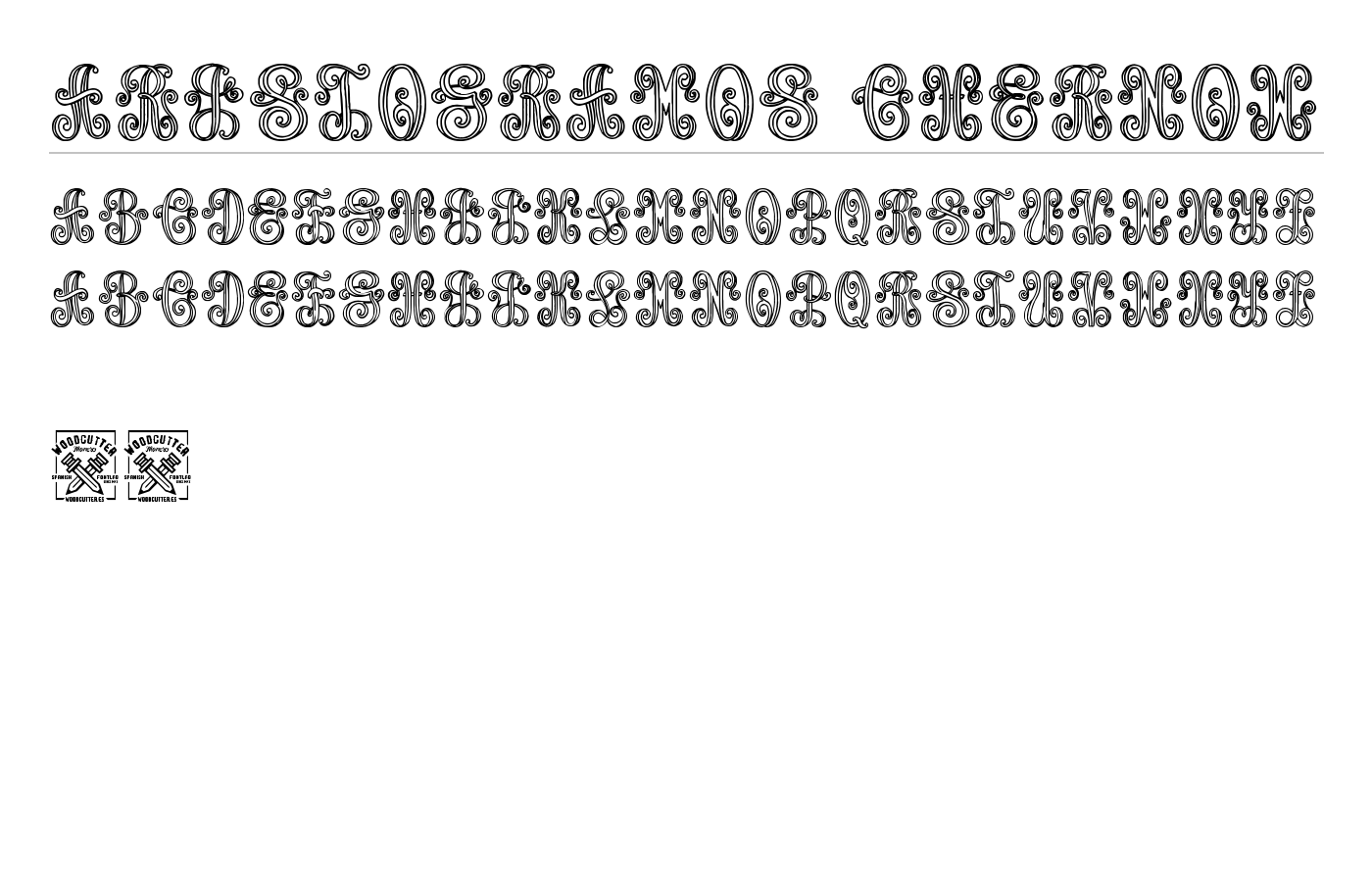
Aristogramos Chernow is a decorative serif font with an ornate, vintage-inspired design featuring elaborate swirls and detailed line work within each letterform. Its bold weight and wide stance make it a standout choice for creative headlines, logos, and packaging where an eye-catching, artistic flair is desired. This font works best in display settings that seek to convey a sense of nostalgia, elegance, and playful sophistication.
Aristogramos Chernow Font
About Aristogramos Chernow Font